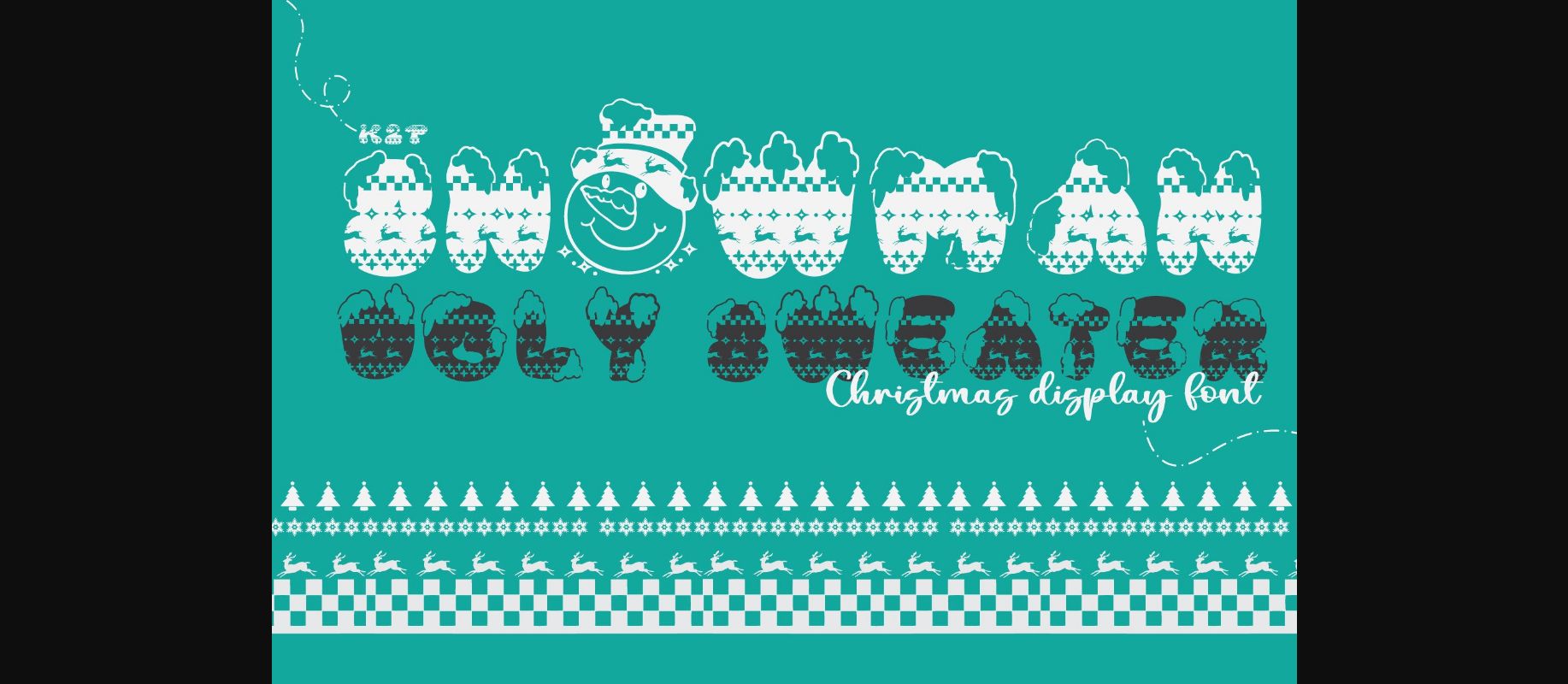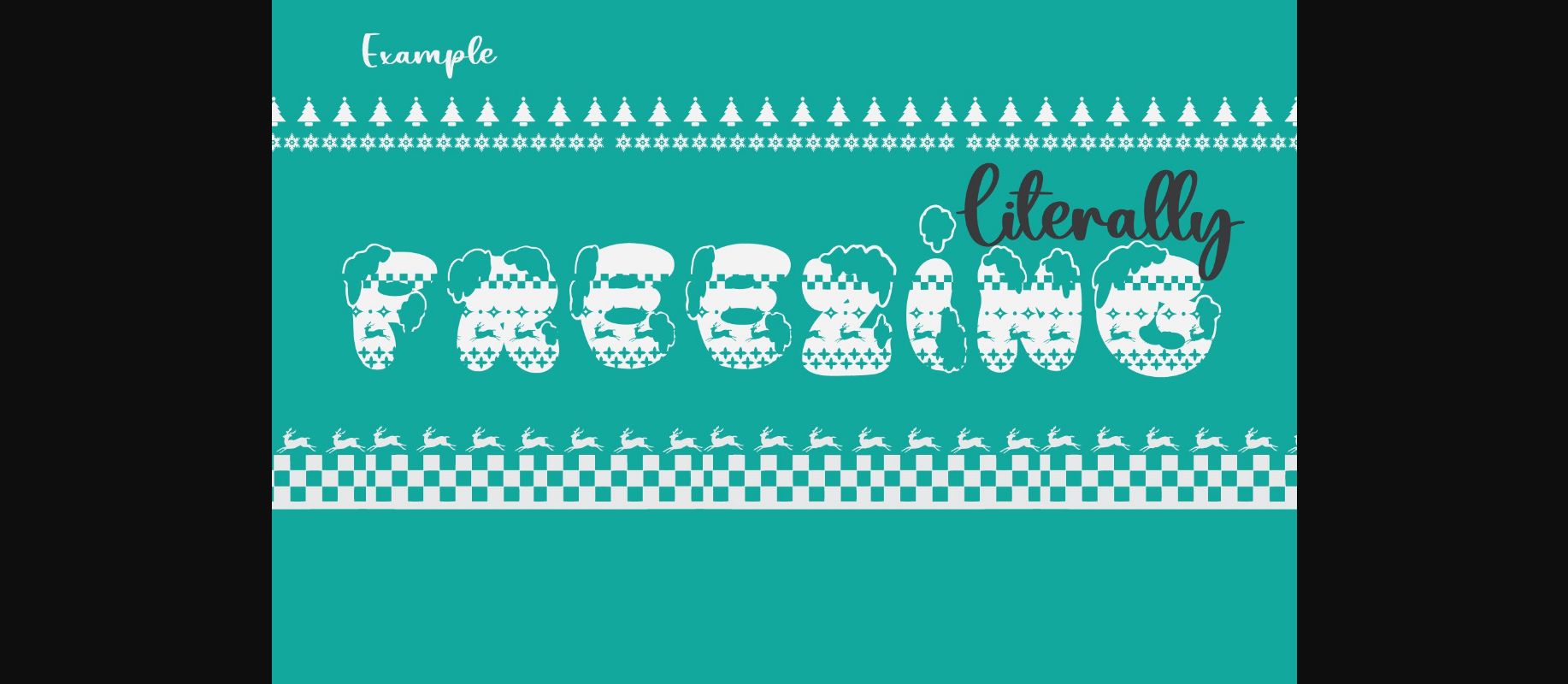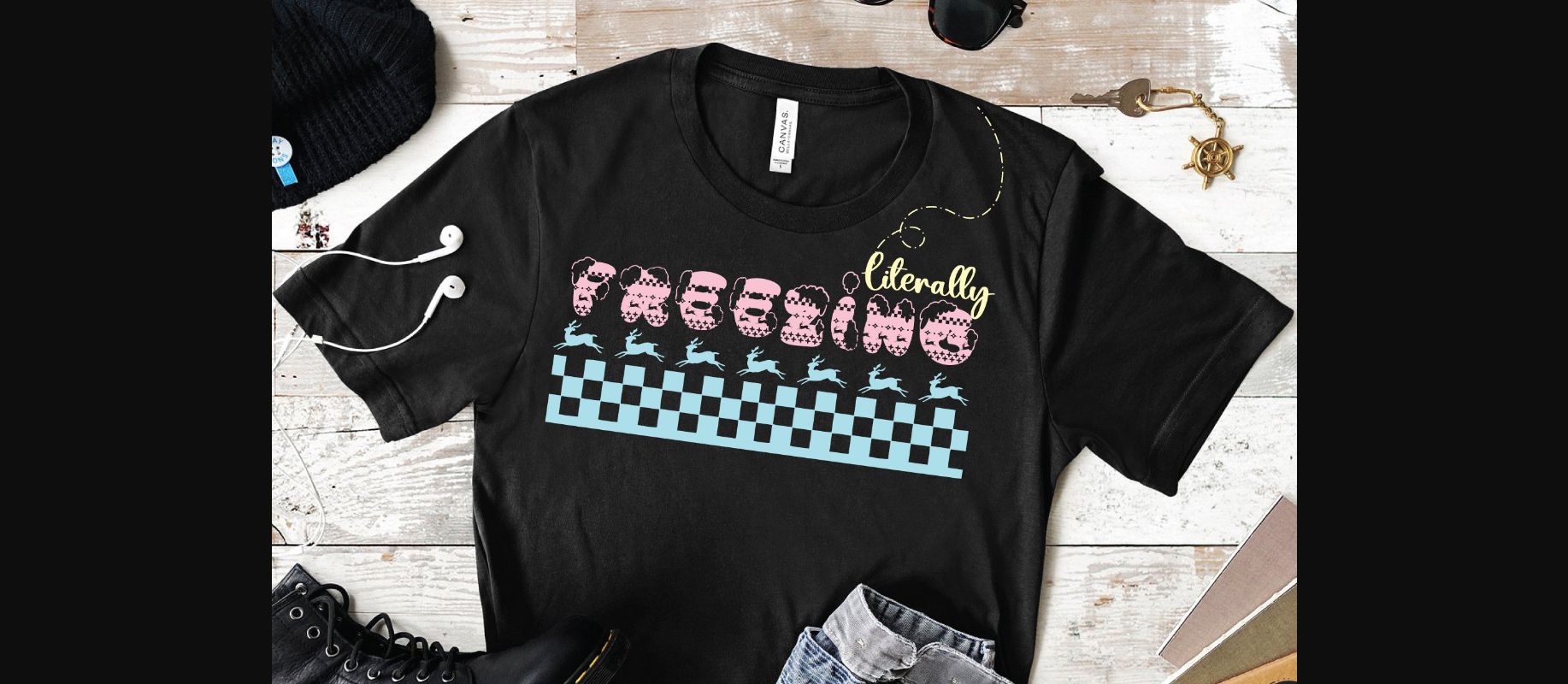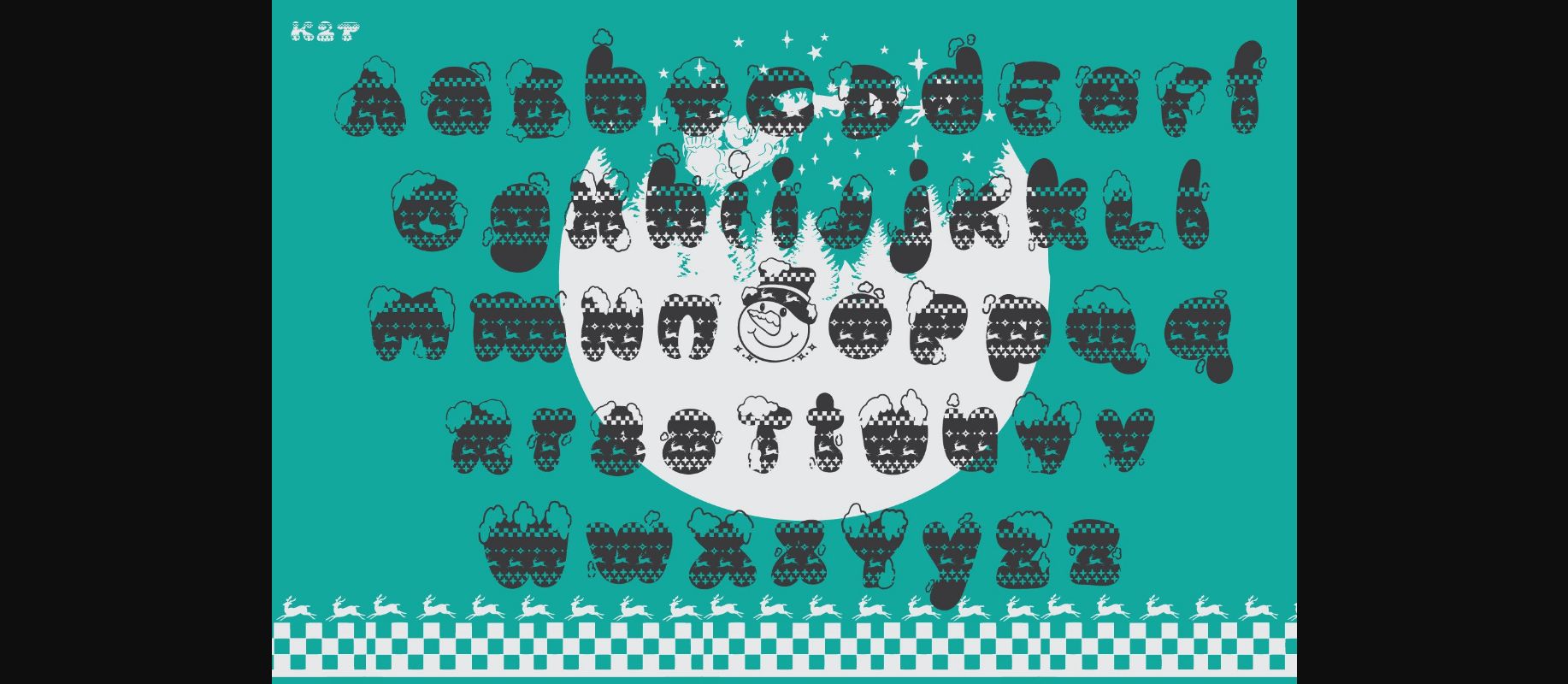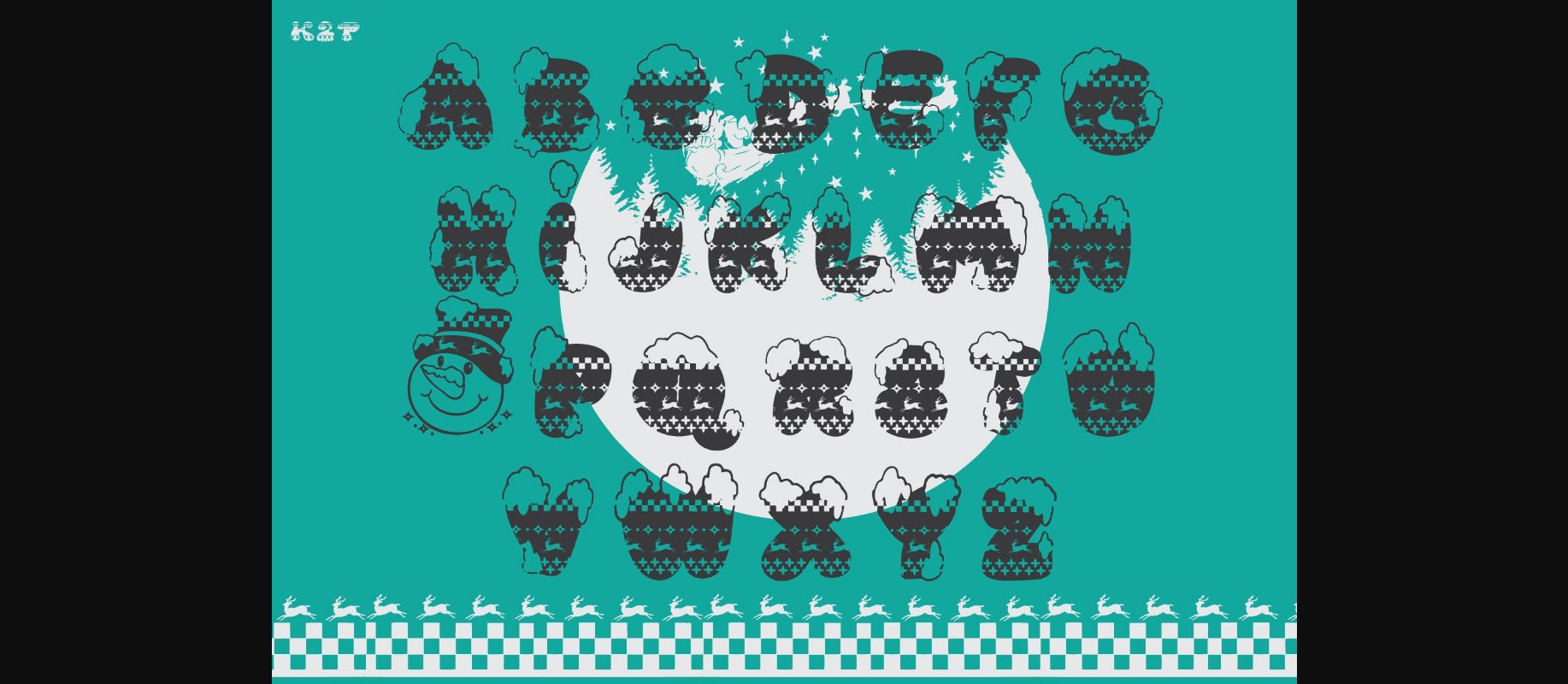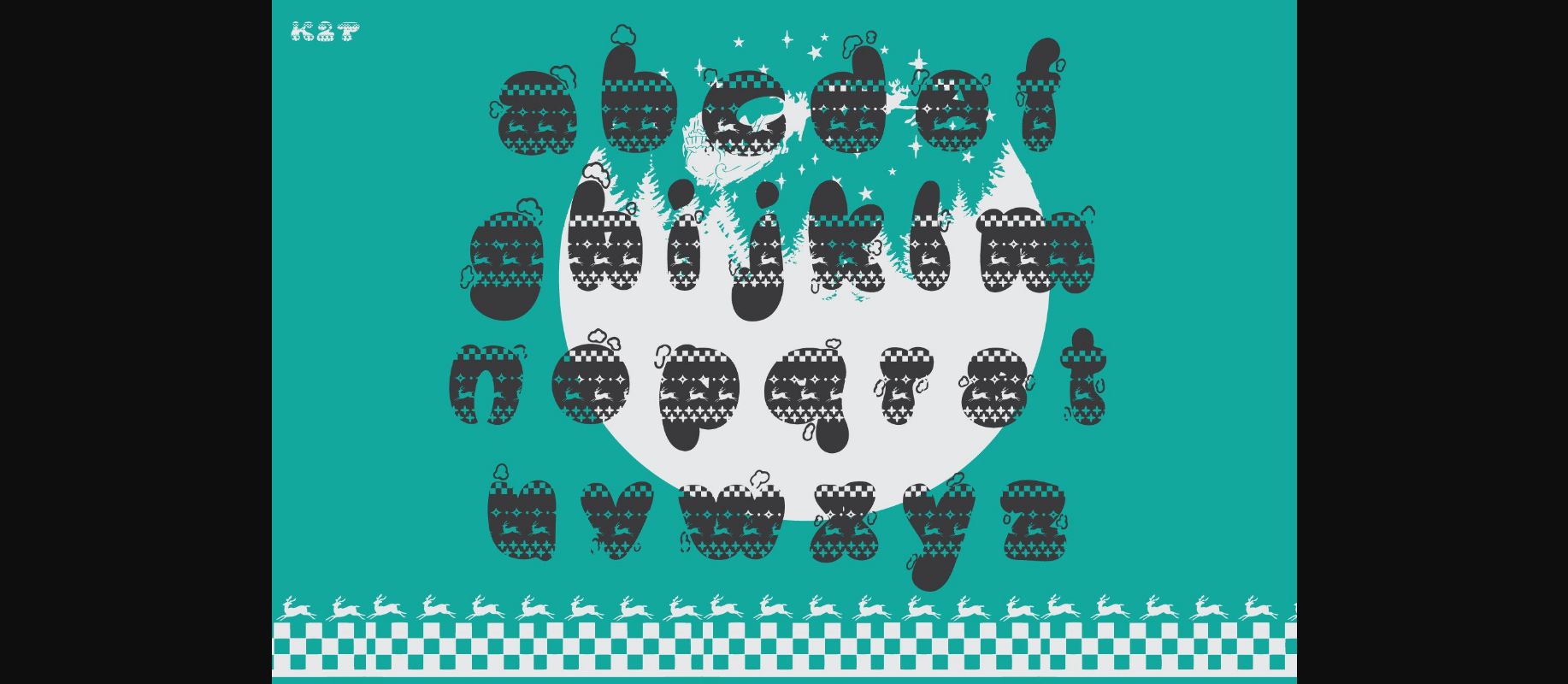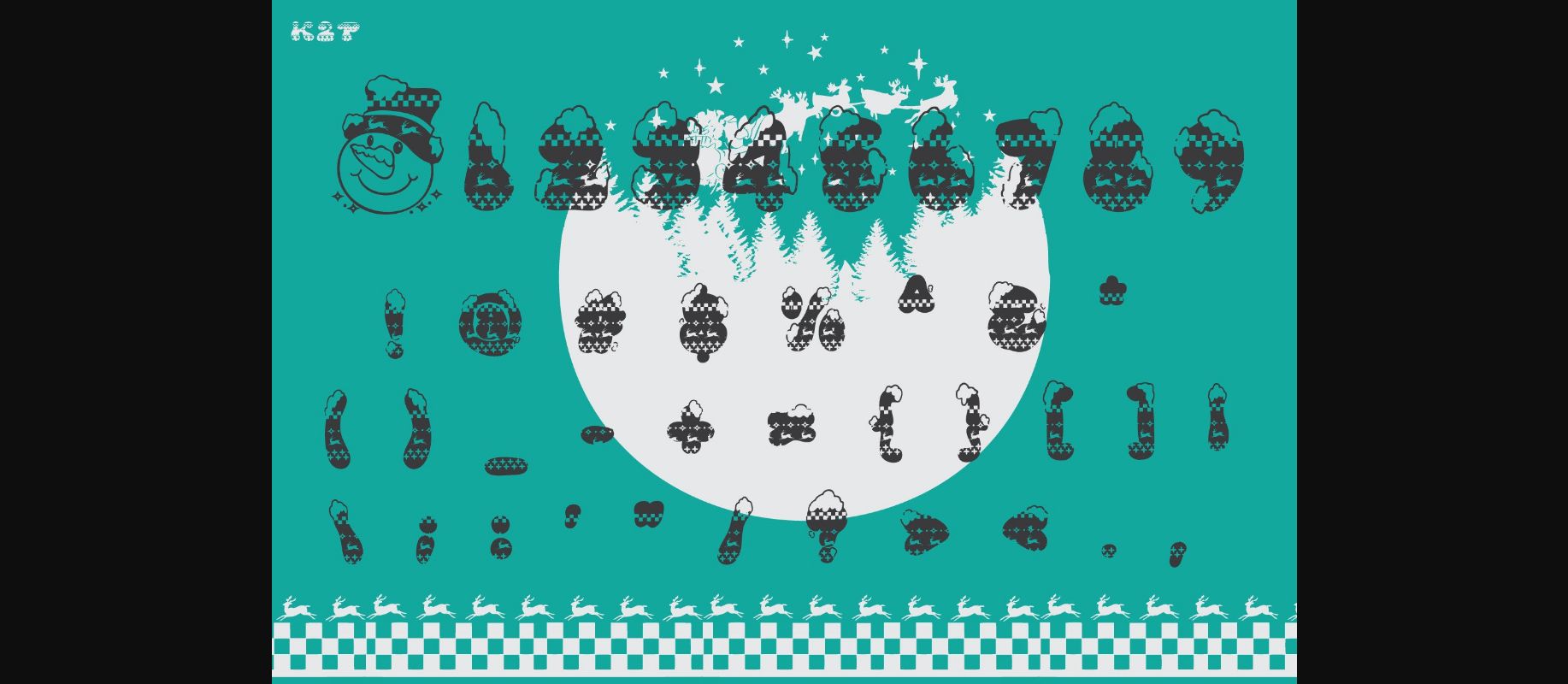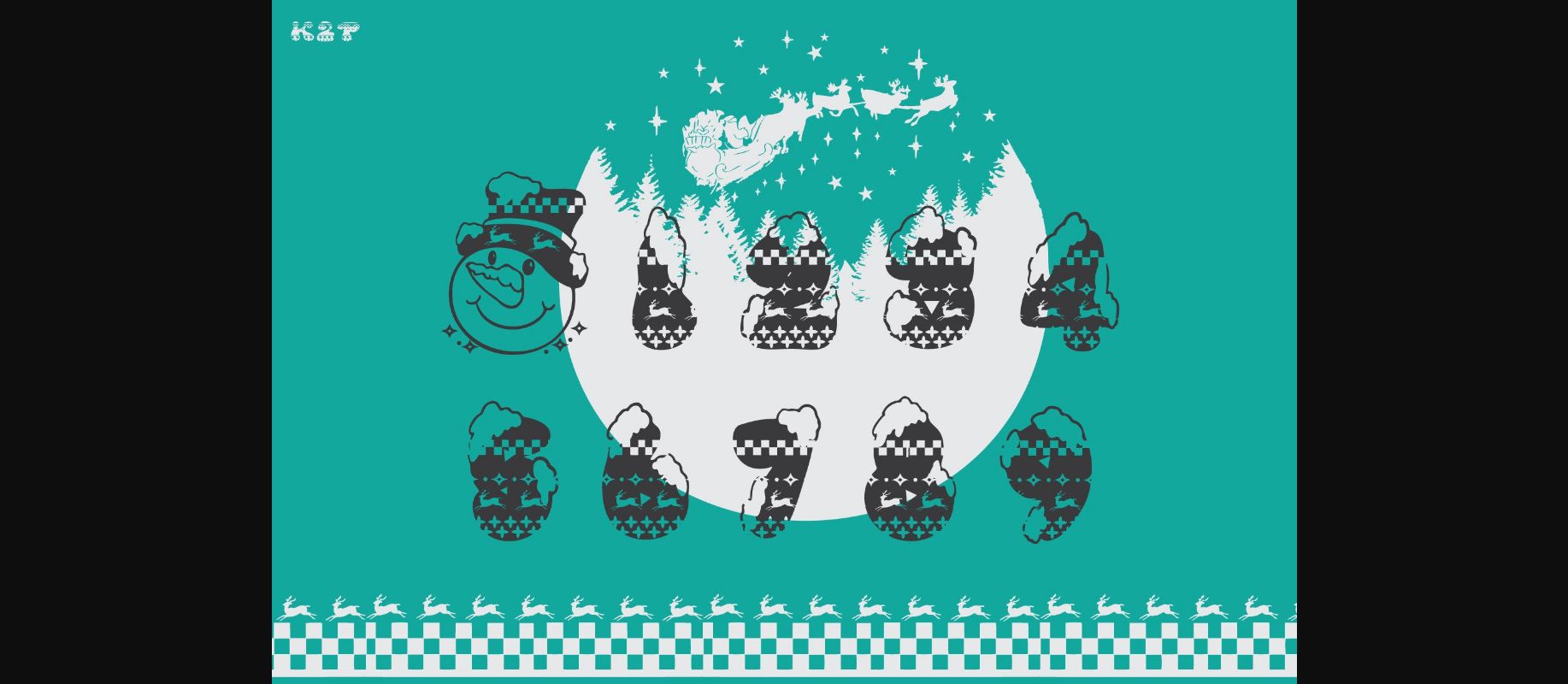
Snowman Ugly Sweater Font
About Snowman Ugly Sweater Font
Snowman Ugly Sweater is a fun, festive, and incredibly unique decorative display font. It can be used for various design ideas, particularly those related to the Christmas Holiday.